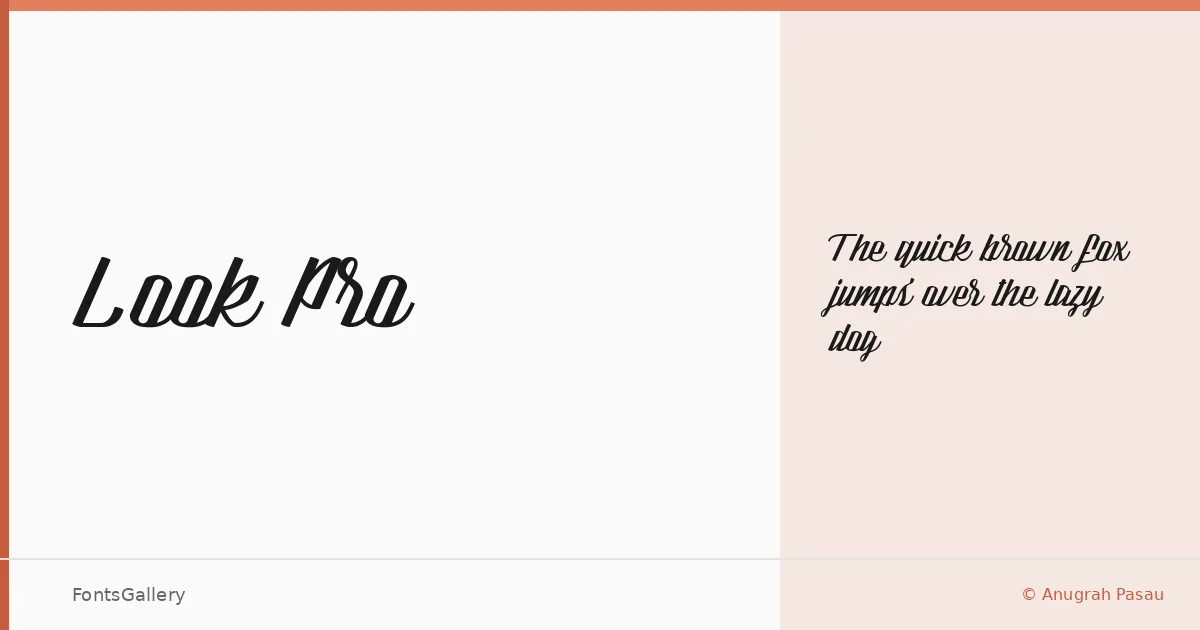
About Look Pro Font
There is a deliberate romanticism in the way these letterforms flow — the kind of unhurried calligraphic energy that suits a monogram or a wedding invitation headline as naturally as it does a luxury brand mark. Released by Anugrah Pasau, this script carries a classic, vintage sensibility without feeling heavy-handed about it.
Available as a single Regular weight in TTF format, the family sits firmly in script territory — elegant, romantic, and built for display use rather than long text. The strokes have the kind of refined contrast you associate with pen-drawn lettering, lending a ceremonial quality that works in both understated and ornate contexts. Note that this release is a demo version; the full license unlocks a broader set of alternate characters that extend its compositional range considerably.
Branding, logo design, posters, wedding stationery, and social media graphics are where this face earns its place — anywhere a vintage or romantic tone needs to come through at a glance. It pairs well with clean neutrals like Helvetica or the structured serif presence of Alexandria and Canela, and can hold its own alongside display companions such as Aresink and Bizantheum.